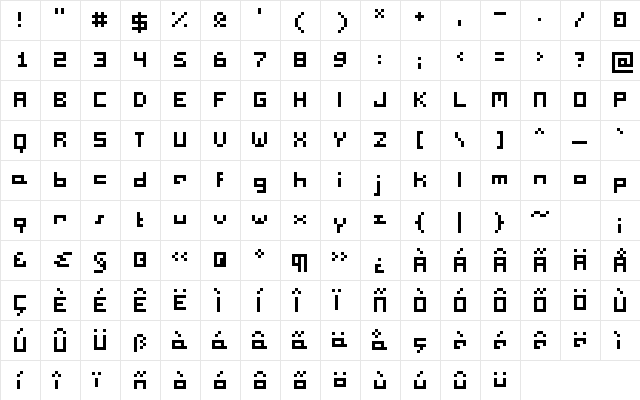
Bmf-10 Regular
Design Context for Bmf-10 Typeface
Bmf-10 takes a measured approach to typography — its balanced proportions and neutral character make it a reliable workhorse for both digital and print work.